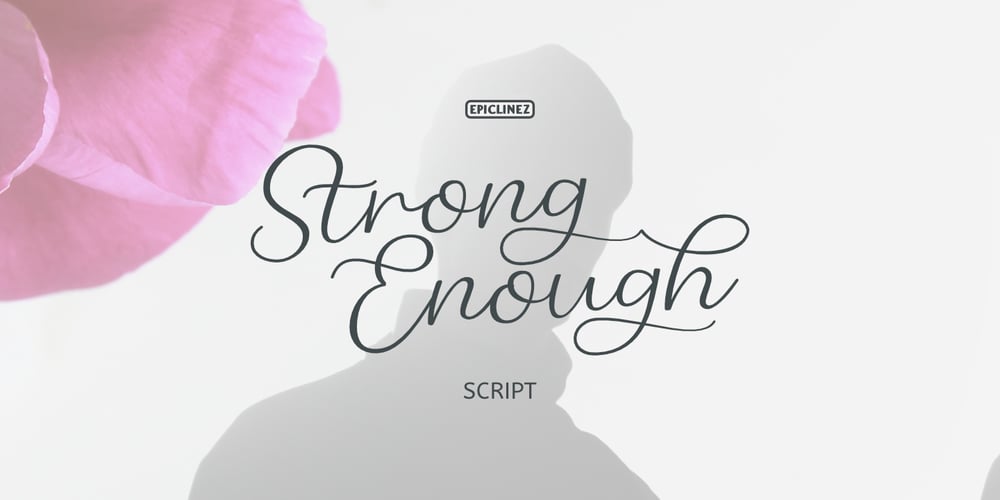
Strong Enough Font Family was designed by Aldy Sidik and published by Epiclinez. Strong Enough contains 1 styles and family package options. Strong Enough is a beautiful and authentic modern calligraphy script that feels fresh and unique. Use it for any design project that requires a charming appearance!